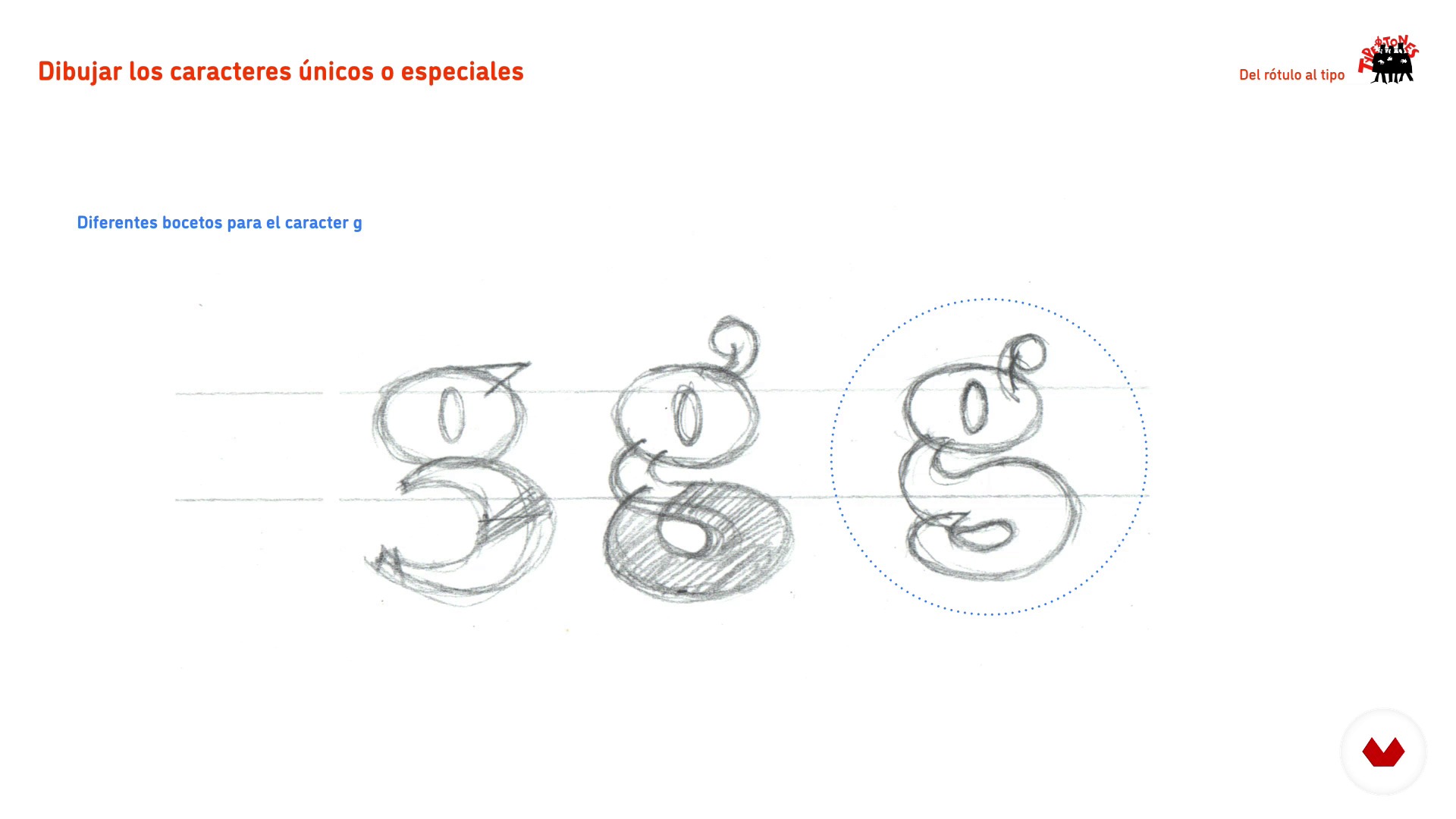
From the Lettering to the Font
Drawing of 'unique' or 'special' characters
A course by Type-Ø-Tones , Typography designers
About the video: Drawing of 'unique' or 'special' characters
“To end the series of lowercase letters, we will sketch and interpret the series a, s, g. ”
In this video lesson Type-Ø-Tones addresses the topic: Drawing of 'unique' or 'special' characters, which is part of the Domestika online course: From the Lettering to the Font. Create your own alphabet based on a found lettering.
“[Music] In this lesson we will deal with three characters that we have called them unique although it is not a universal nomenclature, but we have given this name because they are really characters that have to work perfectly with the rest of the alphabet, but its construction does not use common pieces, but we have to sculpt them based on measures we already have. The reference with the circles must be represented in these characters, but in another way, with another proportion, other size As well as some pieces we have developed very mechanics, such as the "n", the "h". In the case of the...”